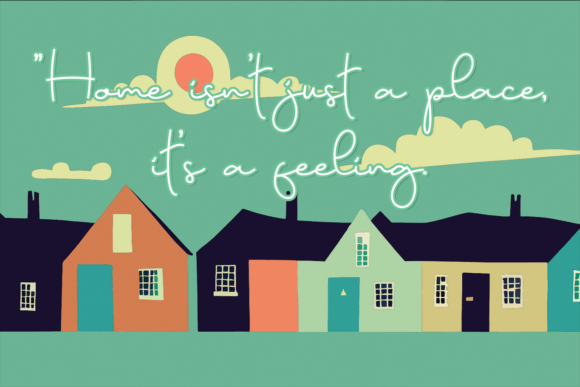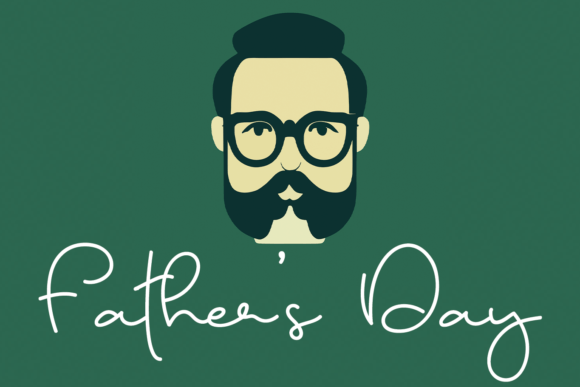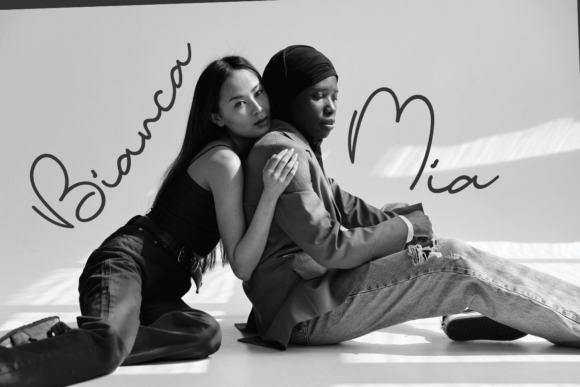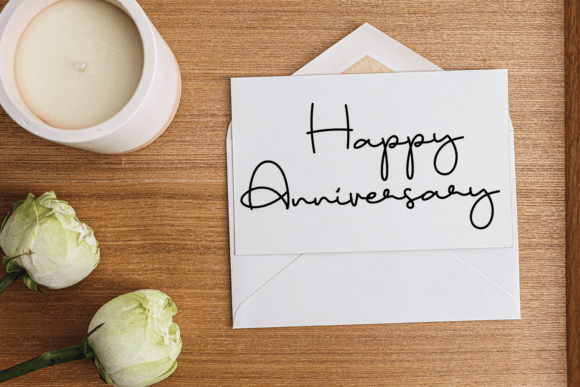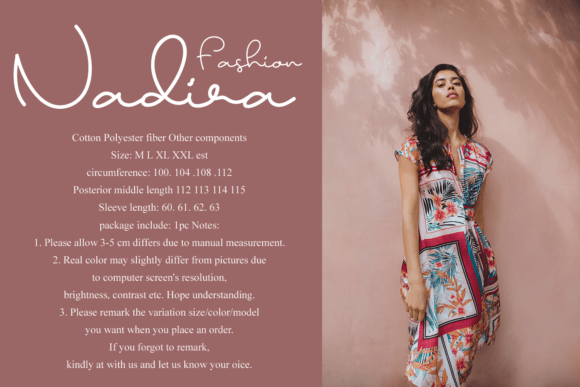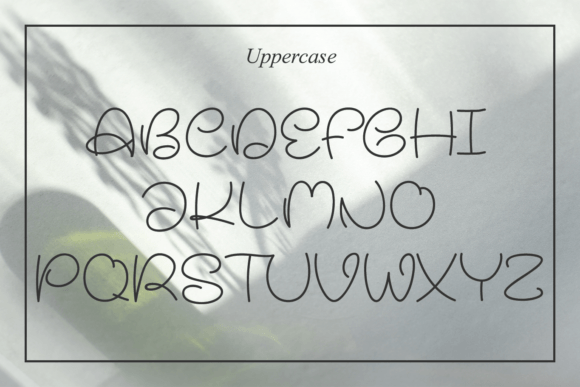
Discover the Elegance of Already Font: Elevate Your Designs with a Touch of Sophistication
In the world of typography, fonts play a crucial role in conveying the message and aesthetic of a design. Among the myriad of fonts available, the Already Font stands out for its unique blend of contemporary flair and classic elegance. Already is a thin-lettered handwritten font that has been masterfully crafted to become a true favorite among designers and crafters alike. Its fresh and modern appeal makes it an ideal choice for a wide range of design projects, from branding and advertising to packaging and digital media.
The Characteristics of Already Font
Already Font is distinguished by its thin, delicate letters that exude a sense of sophistication and refinement. Its handwritten nature gives it a personal and approachable feel, making it perfect for designs that require a touch of warmth and humanity. The font’s contemporary and fresh appeal ensures that it can be used in a variety of contexts, from modern digital designs to more traditional print materials.
Why Choose Already Font?
There are several reasons why Already Font should be your go-to choice for your design projects:
- Versatility: Already Font is incredibly versatile, making it suitable for a wide range of design applications. Whether you’re working on a logo, brochure, website, or social media graphics, this font can be easily adapted to fit your needs.
- Elegance: The thin-lettered design of Already Font adds a touch of elegance to any design, making it perfect for projects that require a level of sophistication.
- Readability: Despite its delicate appearance, Already Font is highly readable, even at smaller sizes. This makes it an excellent choice for body text, as well as for headlines and titles.
- Uniqueness: In a sea of generic fonts, Already Font stands out for its unique and distinctive appearance. Using this font can help your designs stand out and leave a lasting impression on your audience.
How to Use Already Font in Your Designs
Incorporating Already Font into your designs is easy and straightforward. Here are a few tips to get you started:
- Pair it with other fonts: Already Font pairs well with a variety of other fonts, from bold and sans-serif to script and serif fonts. Experiment with different combinations to find the perfect match for your design.
- Experiment with colors: The delicate appearance of Already Font makes it an excellent choice for designs that feature bold and bright colors. Try pairing it with a vibrant background or using it in conjunction with a colorful graphic.
- Pay attention to spacing: As with any font, spacing is crucial when using Already Font. Make sure to leave enough space between letters and lines to ensure optimal readability.
Who Can Benefit from Already Font?
Already Font is an excellent choice for a wide range of designers and crafters, including:
- Graphic designers: Whether you’re working on a branding project, creating social media graphics, or designing a website, Already Font can add a touch of elegance and sophistication to your designs.
- Digital artists: Already Font can be used to add a personal and creative touch to digital artwork, from illustrations to paintings.
- Crafters: If you’re a crafter looking to add a personal touch to your projects, Already Font can be used to create beautiful and unique titles, headings, and labels.
In conclusion, Already Font is a versatile and elegant font that can elevate your designs to the next level. Its unique blend of contemporary flair and classic sophistication makes it an excellent choice for a wide range of design projects. Whether you’re a graphic designer, digital artist, or crafter, Already Font is sure to become a true favorite in your design arsenal. So why wait? Add Already Font to your creative projects today and make them truly outstanding!